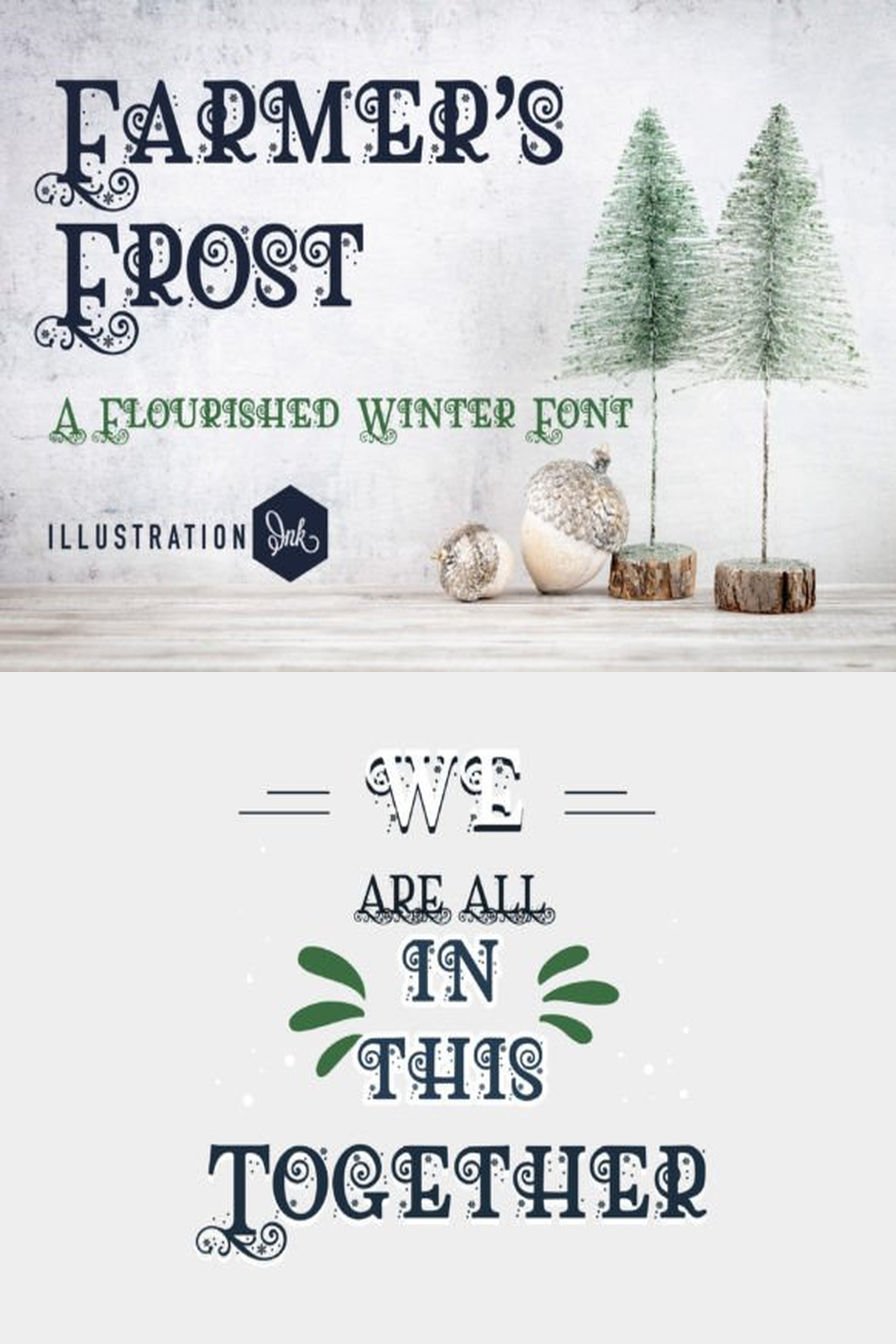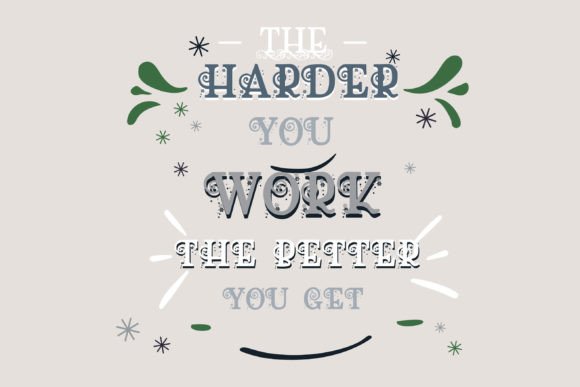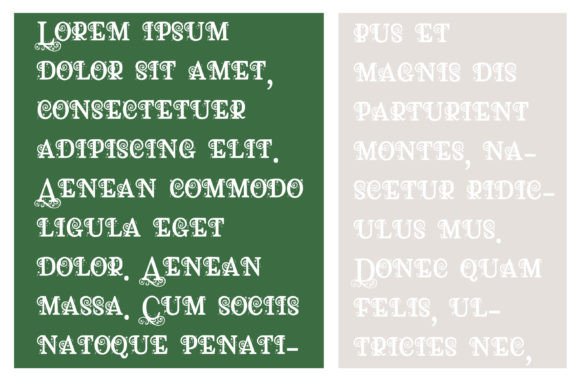
Farmer’s Frost Font
About the Farmer’s Frost Font
Meet Farmer’s Frost Font, a stunning font that brings a touch of elegance and professionalism to any design. This serif font sports flourishes and snowflakes throughout.